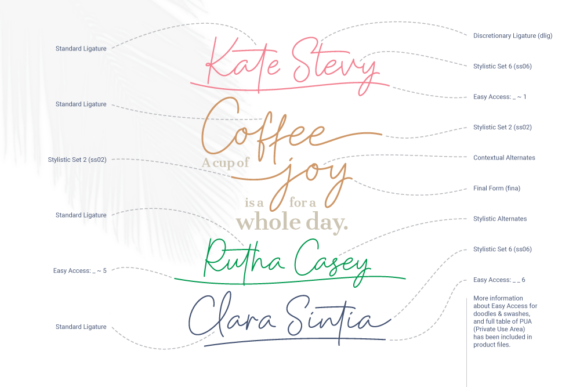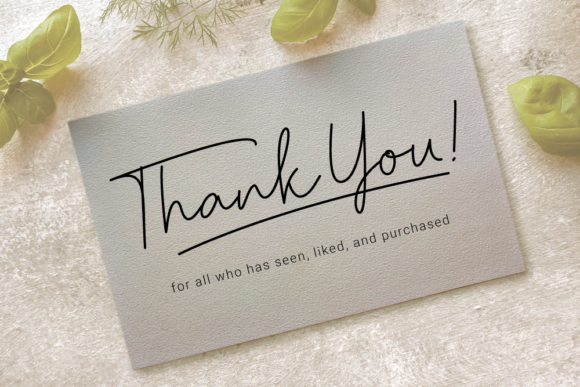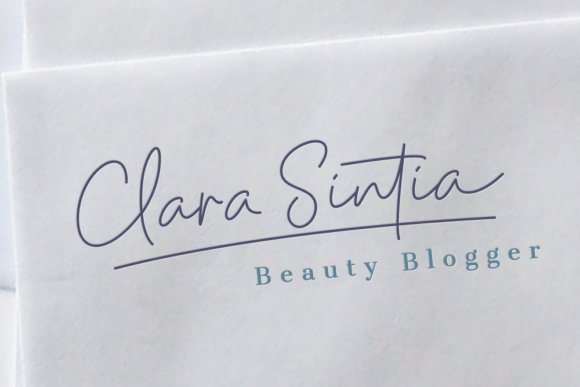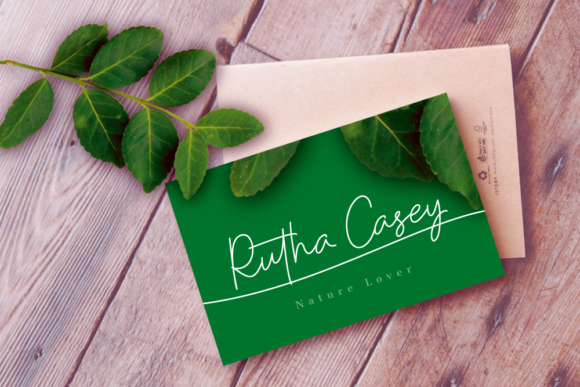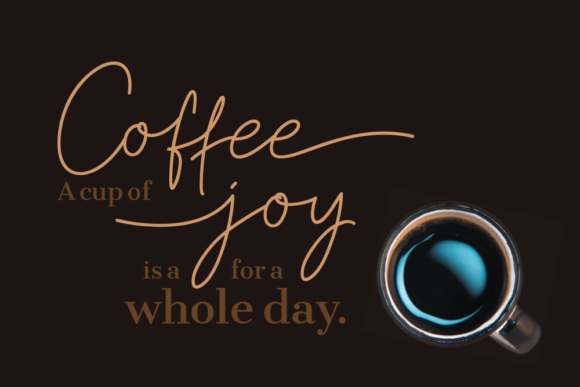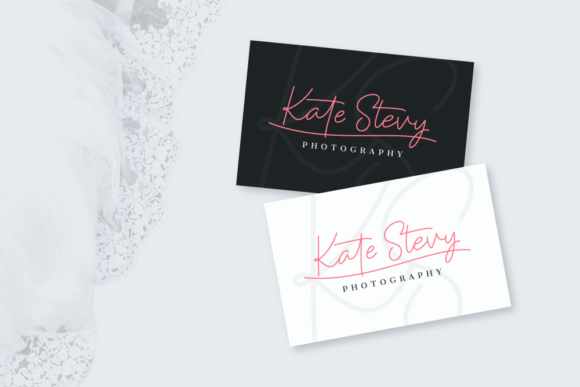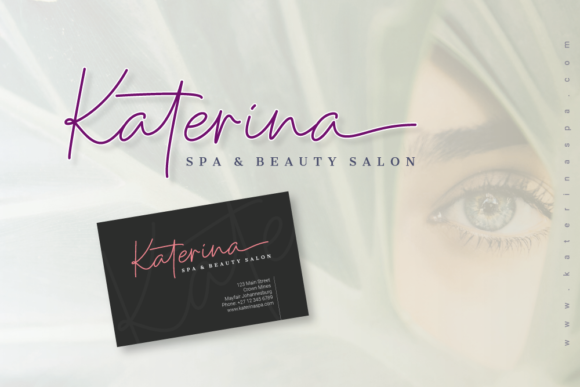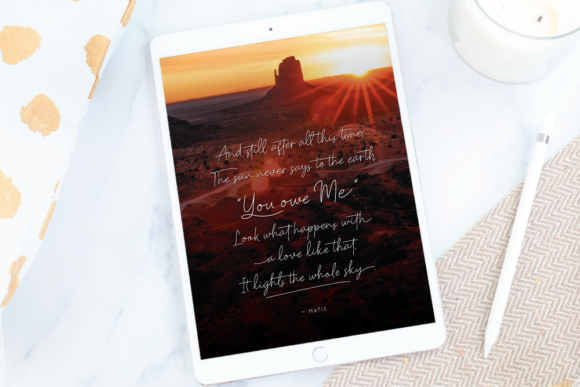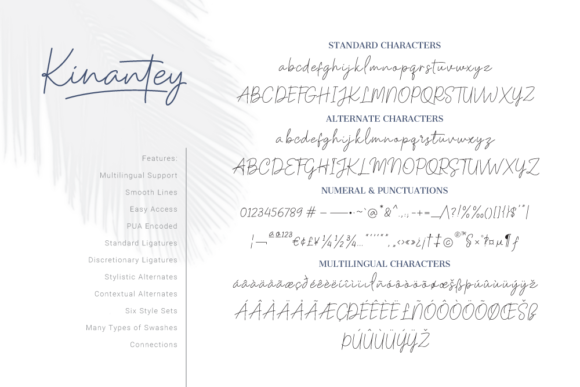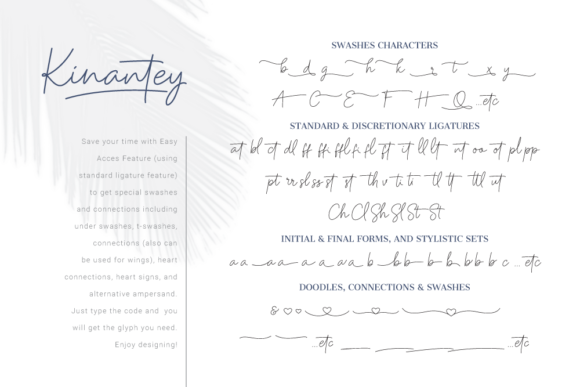
Kinantey Font
Kinantey is an elegant monoline signature font with smooth lines and many alternates. Its features will make your design look natural and classy.